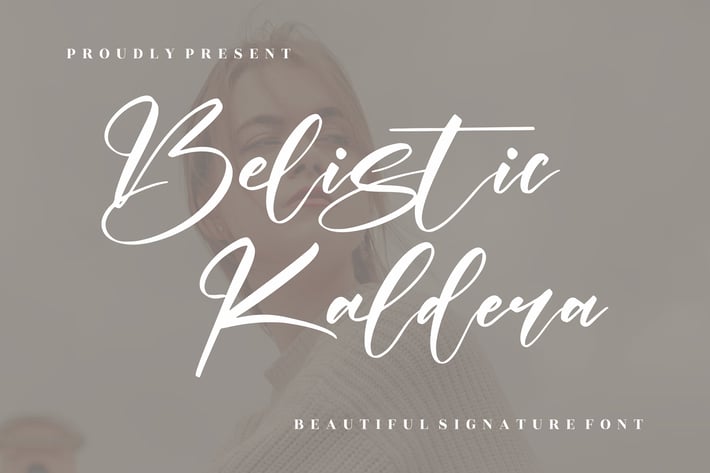
Belista Kaldera Signature Font
Belista Kaldera is a refined signature script with fluid strokes, elegant contrast, and sweeping swashes that feel hand-inked. Its silky monoline rhythm and luxe curves add instant sophistication to logos, stationery, and lifestyle brands—perfect for anything that needs a soft yet confident signature touch. Paired Regular & Italic styles make classy headings and accents a breeze. Sign every project with quiet confidence.
+ Regular & Italic styles for effortless pairing
+ OpenType ligatures & alternates for natural handwriting flow
+ Long swashes for dramatic openings & signature endings
+ Smooth curves and tight kerning for clean, upscale results
+ Signature logos & personal branding
+ Wedding suites (invites, RSVPs, menus)
+ Beauty, fashion & lifestyle packaging
+ Instagram quotes & highlight covers
+ Thank-you cards & business cards
+ Blog headers & website hero text
+ Product labels, tags & lookbooks
+ Photo watermarks & editorial layouts
Let your brand speak in a beautiful, effortless signature.